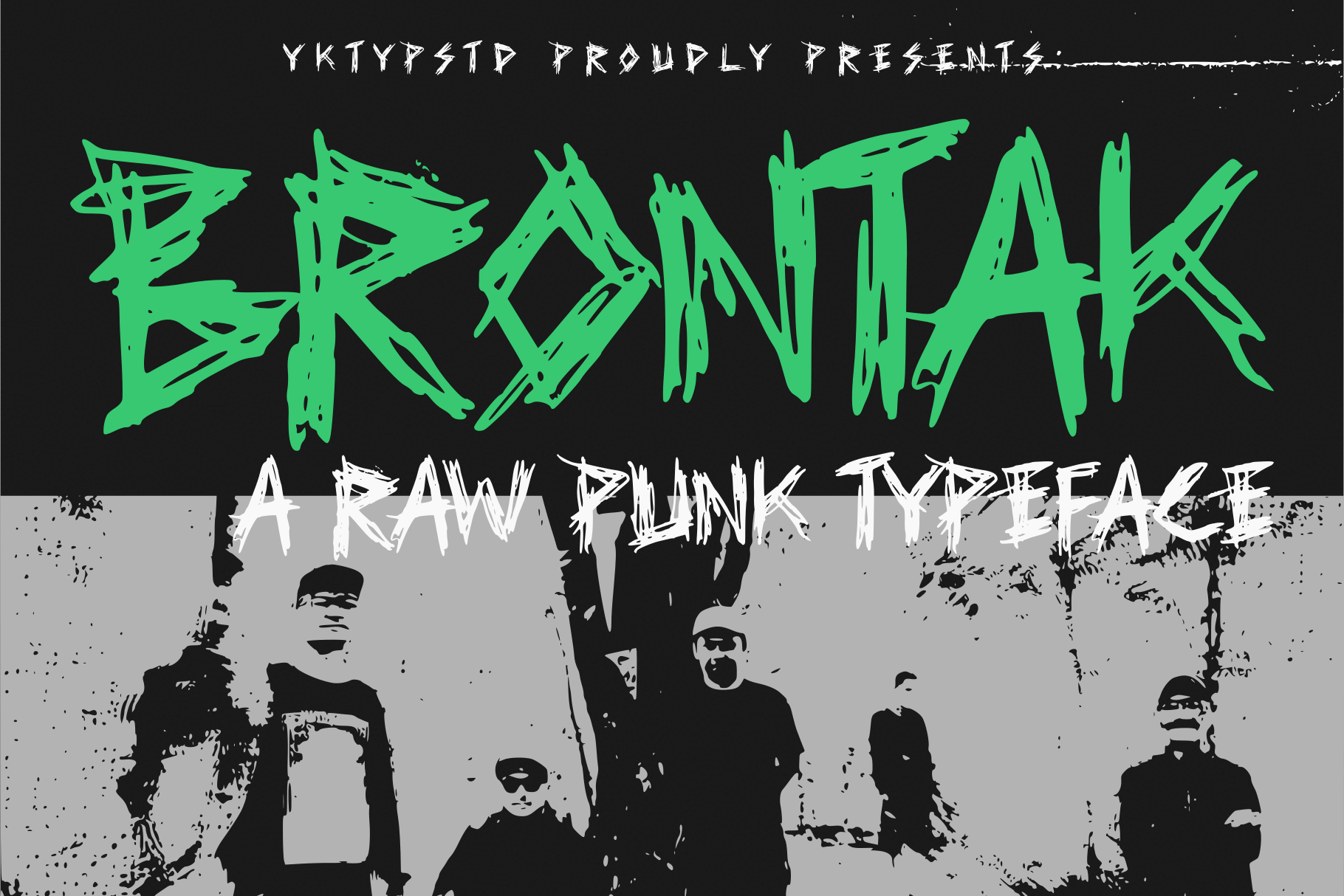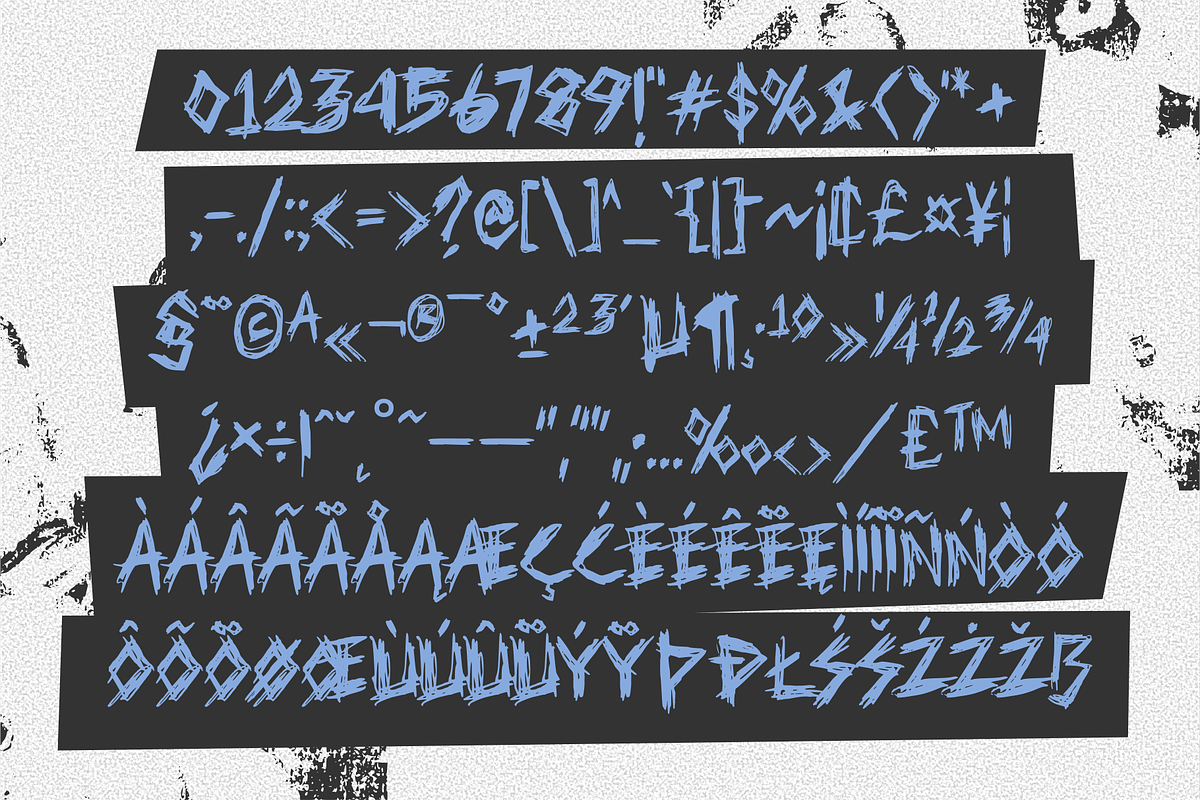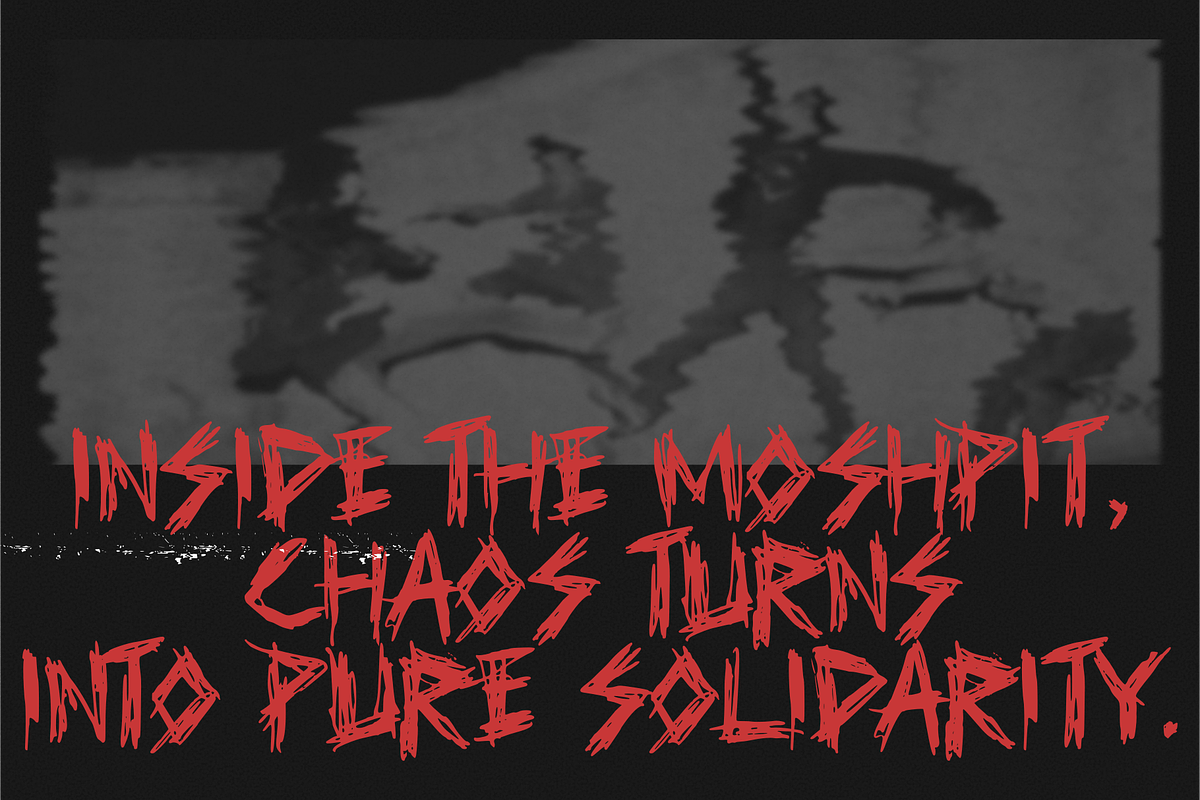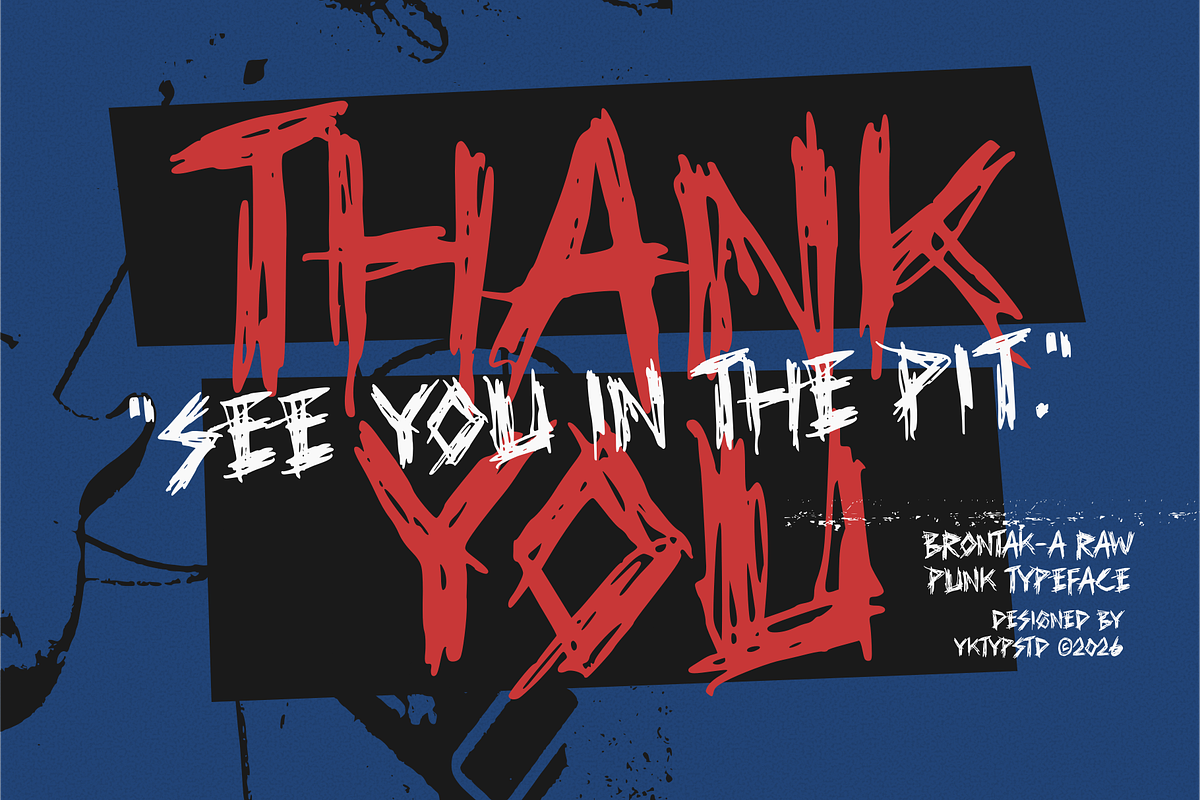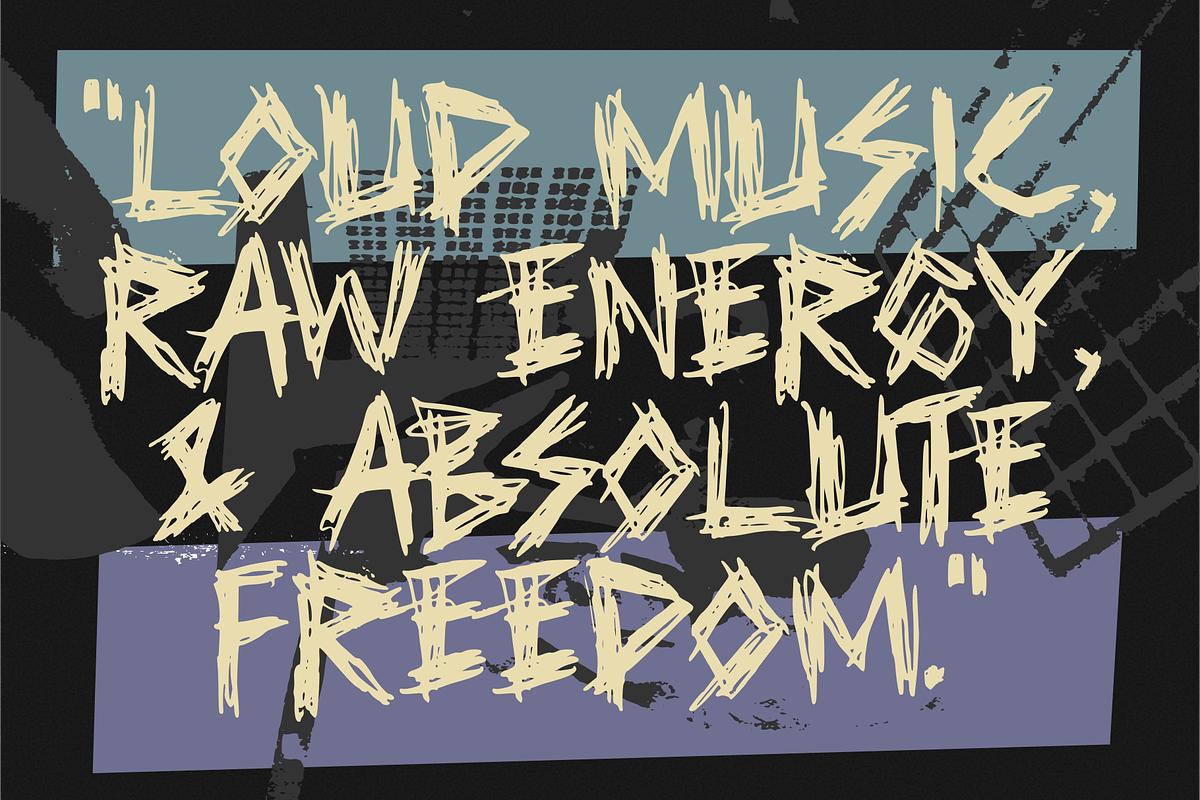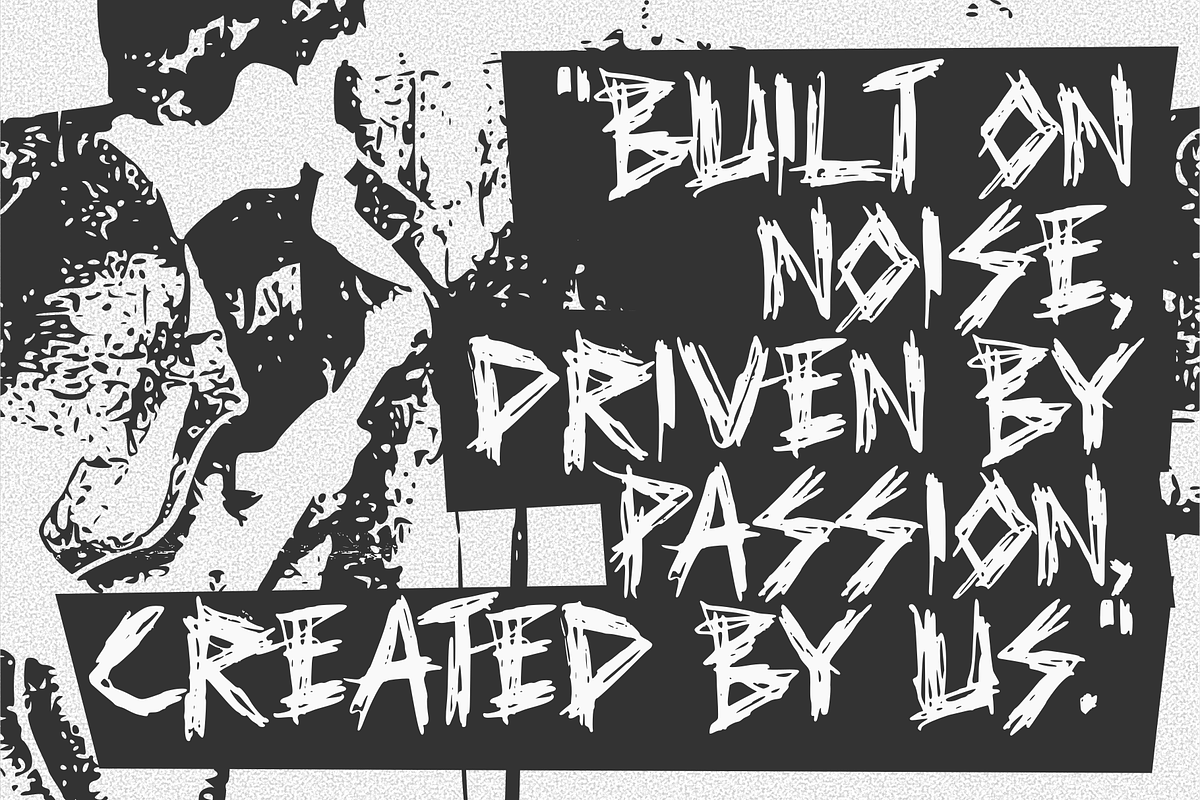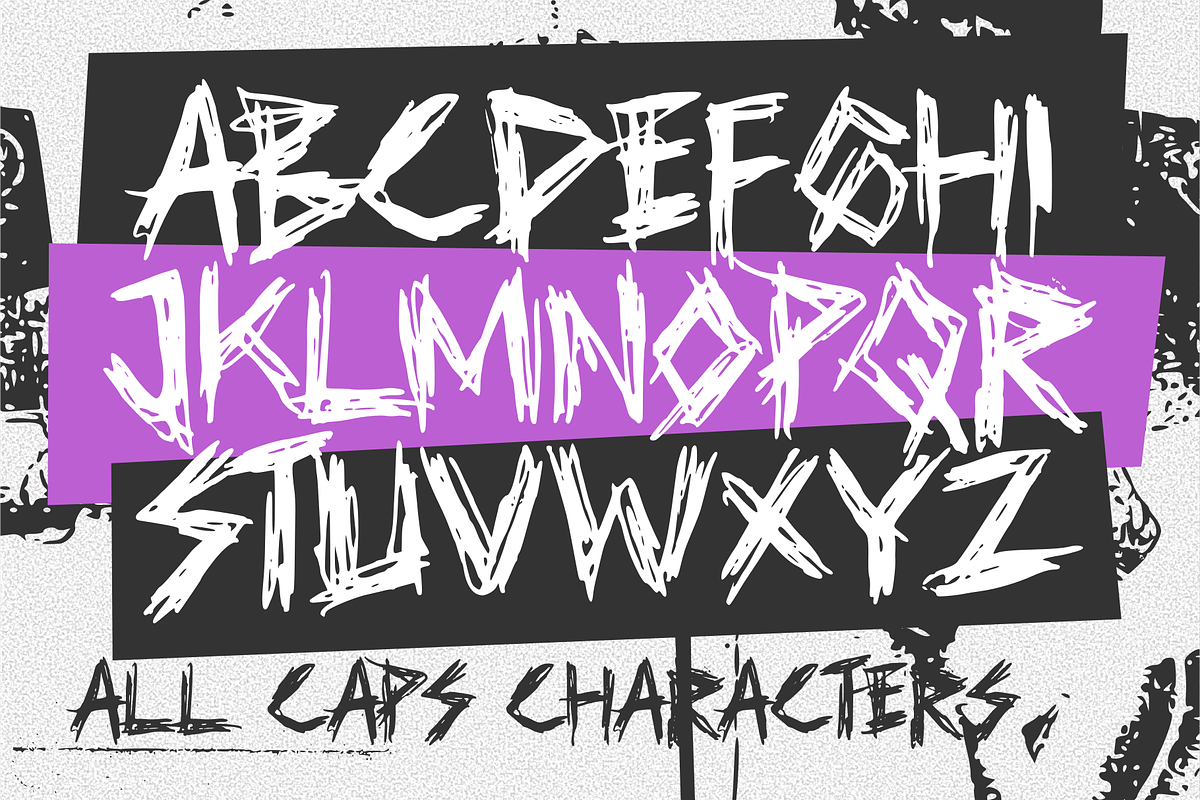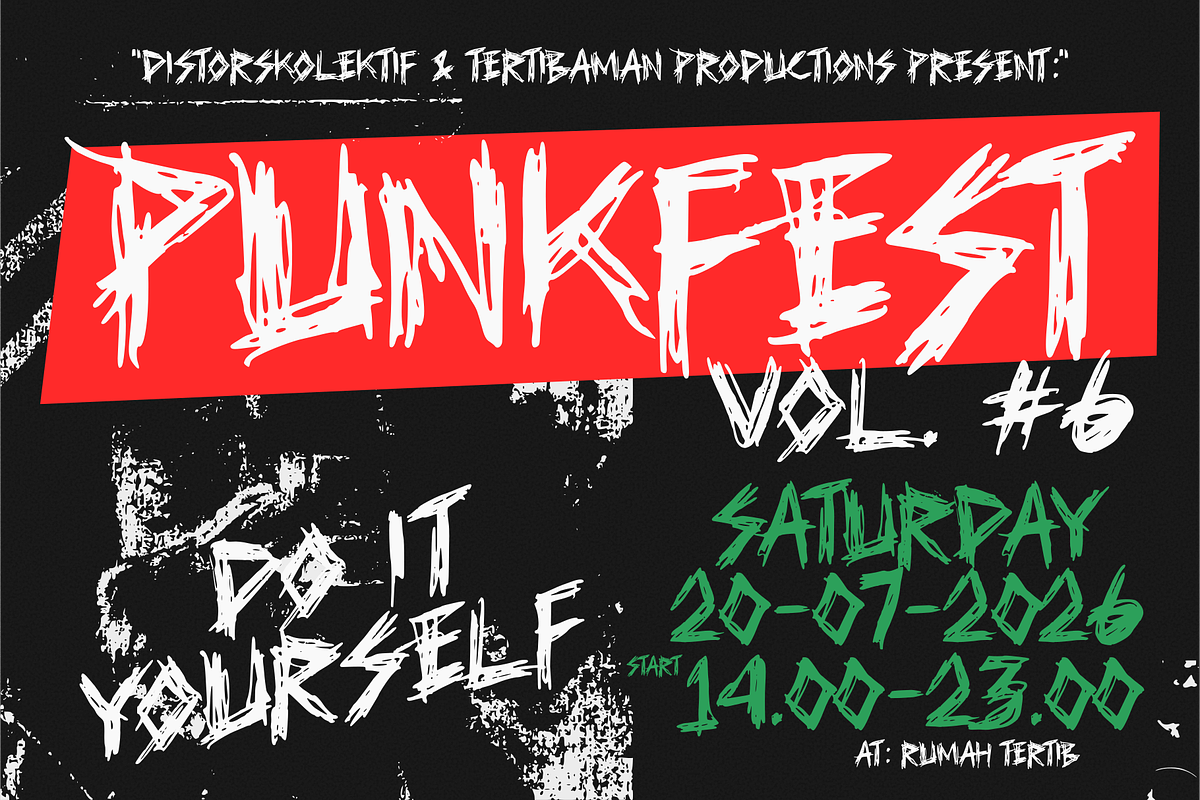
Brontak - A Raw Punk Typeface
Brontak - A Raw and Rebellious Punk Style Typeface
Brontak is a punk-style typeface crafted to unleash raw energy, chaos, and a spirit of rebellion. Inspired by underground culture and DIY punk rock gig posters, this font features rough textures, scratchy brush strokes, and aggressively asymmetric lines.
If you are looking for a font that is bold, loud, and refuses to follow conventional design rules, Brontak is your perfect match.
Band merchandise and t-shirt designs
Gig posters and festival flyers
Album arts and music covers
Independent magazine covers (Zines)
Edgy and standout social media graphics
Comprehensive Punctuation & Symbols: Includes standard glyphs, mathematical symbols, brackets, and legal marks (©, ®, ™).
Global Currency Symbols: Ready for international markets with Dollar ($), Euro (€), Pound (£), Yen (¥), Cent (¢), and more.